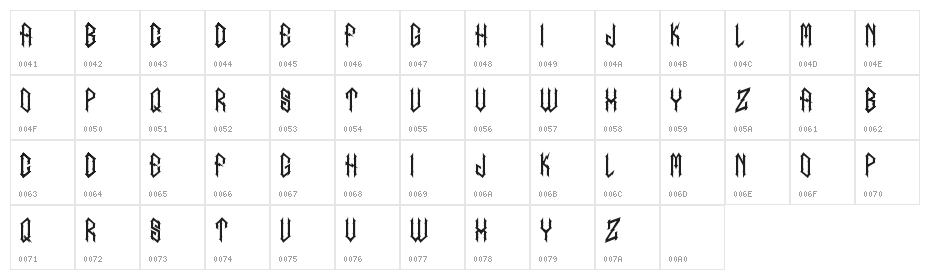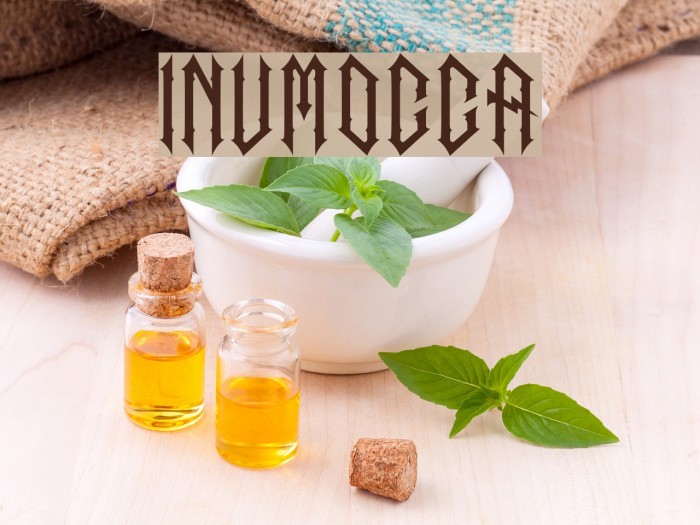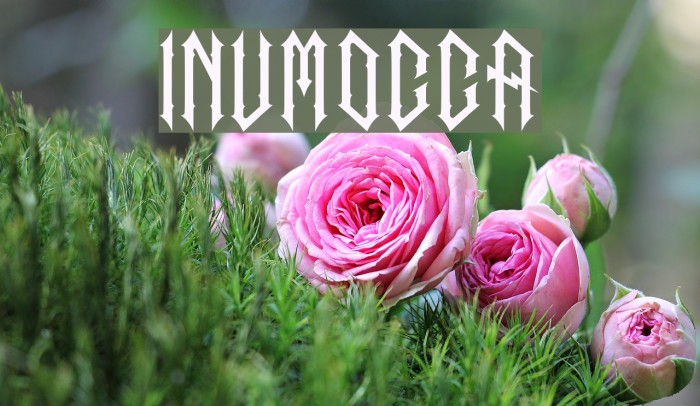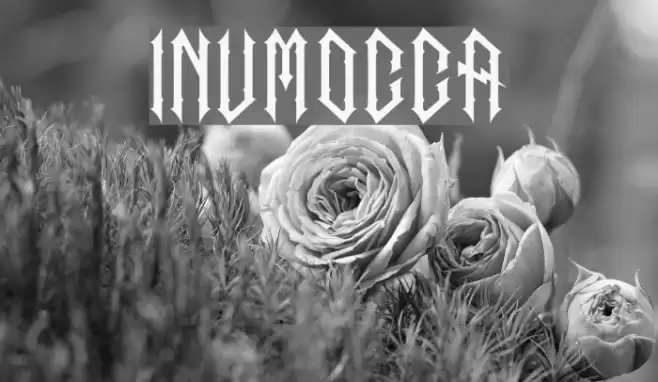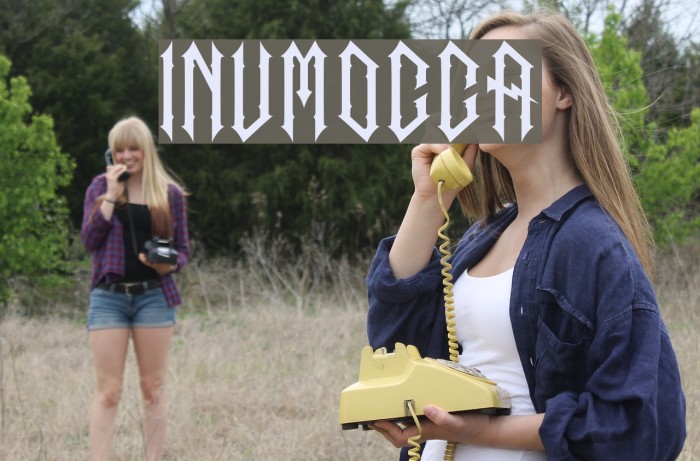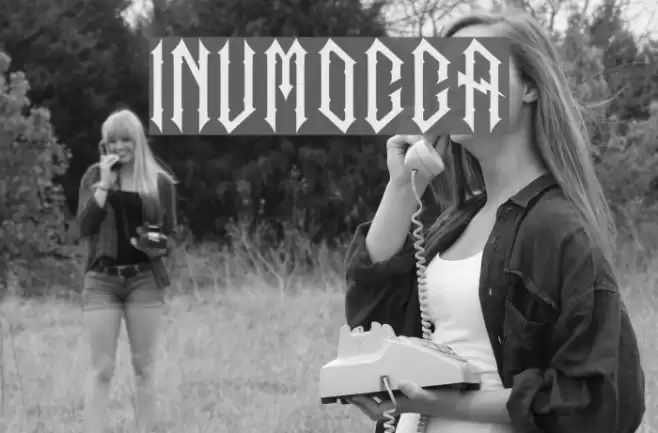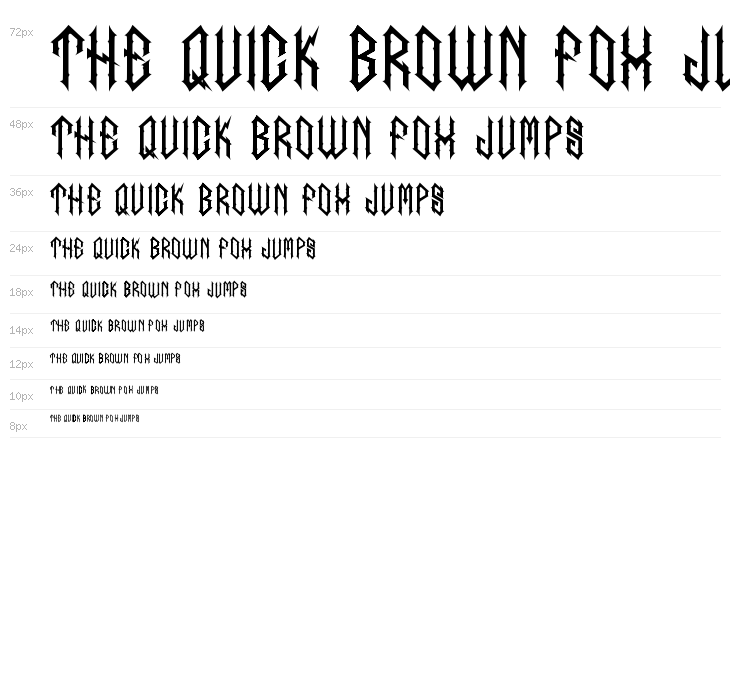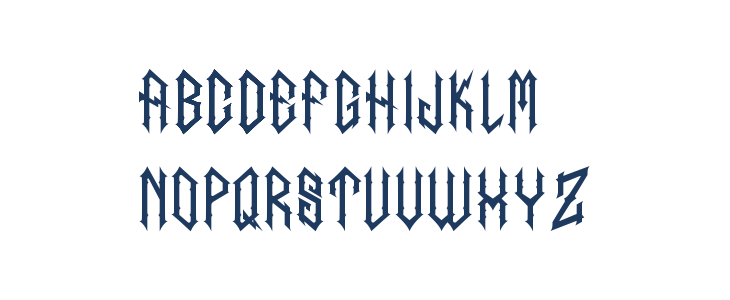
inumocca Font
inumocca Description
This font features a bold, angular design with sharp edges and a gothic influence. The characters are highly stylized, with pointed serifs and a strong vertical emphasis. The uppercase letters are particularly striking, with intricate details that give them a medieval, almost heraldic appearance. The overall look is dramatic and impactful, making it suitable for designs that require a strong visual presence. The font's unique style is reminiscent of traditional blackletter typefaces, yet it incorporates modern elements that enhance its versatility.
| Overall Style | Gothic |
| Proposed Projects | Ideal for use in branding, album covers, posters, and any project requiring a dramatic, gothic aesthetic. |